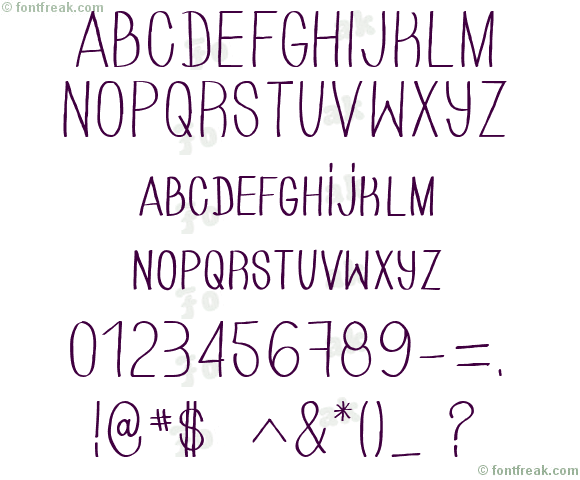
HAND OF CRE
The HAND OF CRE font by FRED CRE is a captivating handwritten typeface that radiates a unique personality, making it an excellent choice for various creative projects. This font showcases a playful yet elegant design, featuring fluid strokes and a charming irregularity that mimics the spontaneity of human handwriting. With its moderate stroke weight and subtle contrast, HAND OF CRE maintains legibility while adding a personal touch to any visual communication.
One of the standout characteristics of this font is its balanced spacing, which ensures an airy feel while avoiding clutter. The decorative elements, including gentle curves and slight variations in character height, contribute to its distinctive handwritten style. These traits allow HAND OF CRE to bring warmth and authenticity to designs, making it particularly suitable for heartfelt applications.
Best use cases for this font include wedding invitations, where its romantic flair can enhance the overall aesthetic; restaurant menus, giving a cozy, welcoming vibe; greeting cards that require a personal touch; and social media graphics that aim to connect with audiences on a more intimate level. Furthermore, small business owners looking to establish a brand identity that feels approachable and friendly will find this font to be an invaluable asset.